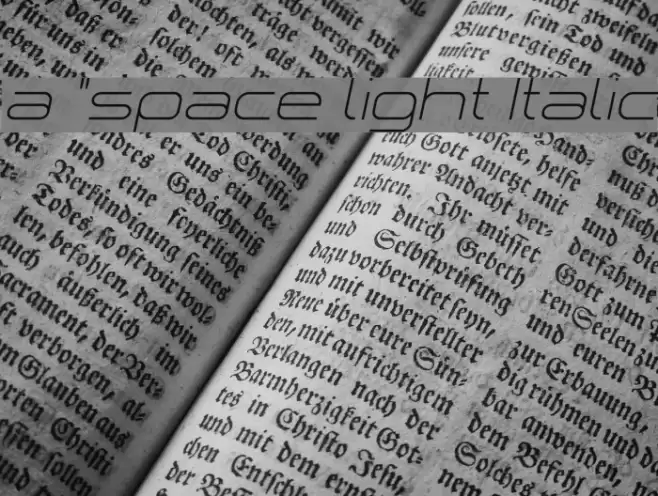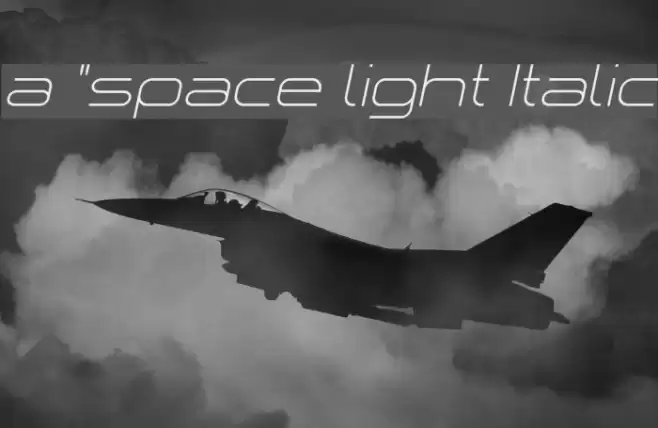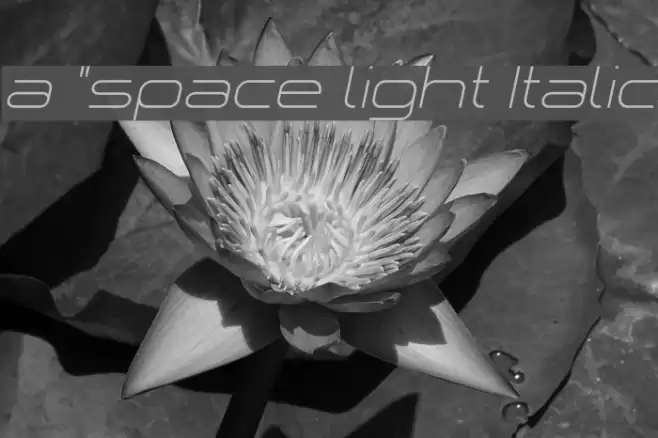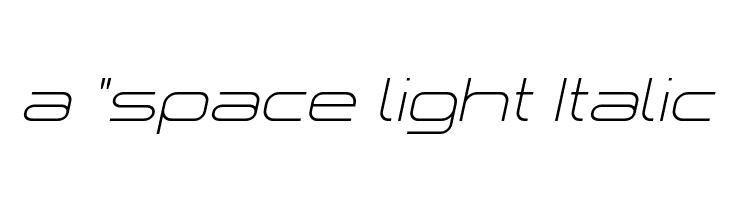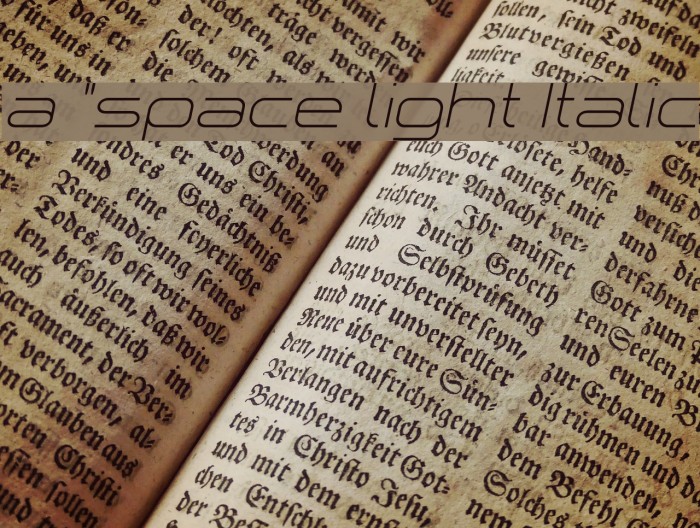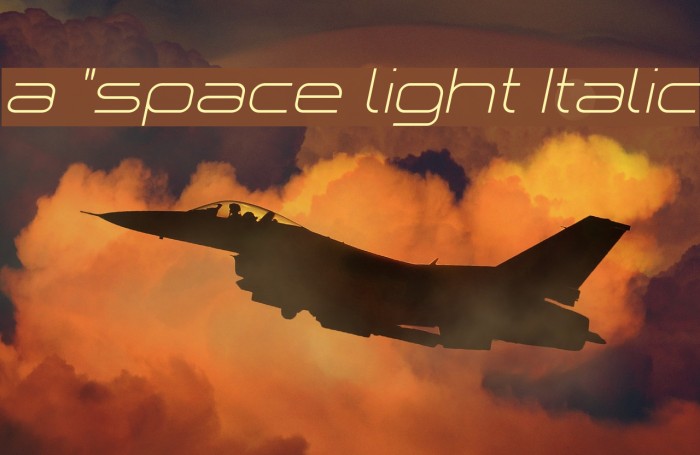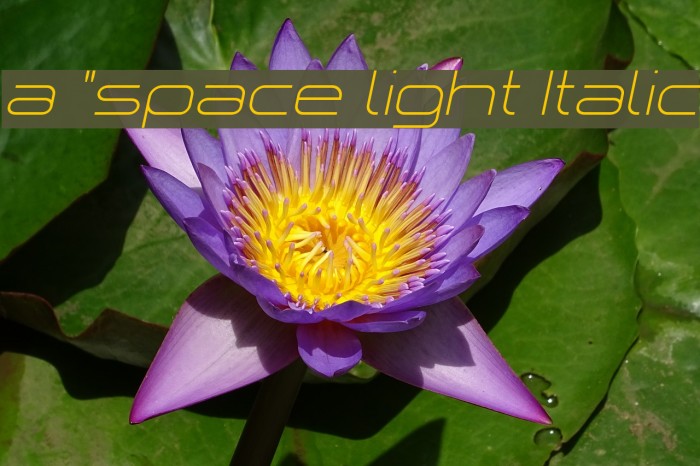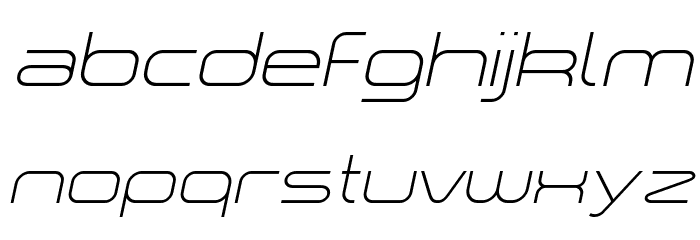
a "space light Italic Font
a "space light Italic Description
This font features a sleek, modern design with a light and airy feel. The characters are slightly italicized, giving them a dynamic and forward-leaning appearance. The strokes are thin and consistent, contributing to a minimalist aesthetic. The font maintains a clean and futuristic look, with rounded edges and smooth curves that enhance its readability. The spacing between characters is generous, ensuring clarity and legibility even at smaller sizes. This style is ideal for projects that require a contemporary and sophisticated touch.
A sleek, modern, and slightly italicized font with a light and airy feel from Uncategorized fonts.
- Proposed Projects: Ideal for tech branding, modern advertising, futuristic designs, and digital interfaces.
- Weight: Light
- Character Spacing: Wide
- Use Case: Headlines, Logos, Digital interfaces